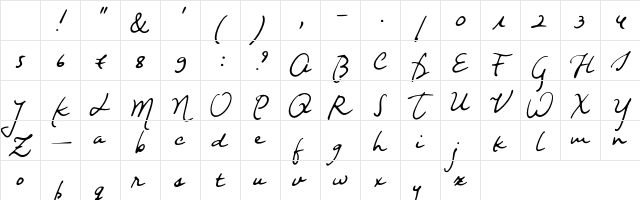
Complete Night Wind Sent Sample Regular glyph index. Displaying only characters natively supported by Night Wind Sent Sample Regular font.
Night Wind Sent Sample is a composed and adaptable typeface that performs quietly and consistently across a wide range of design contexts.